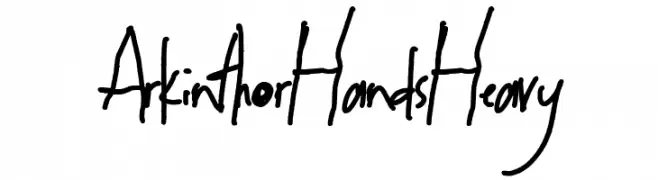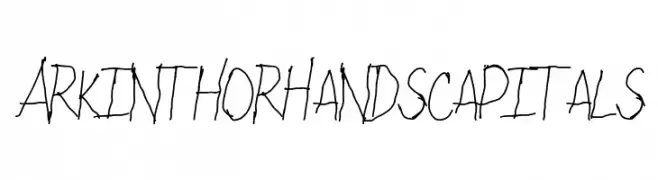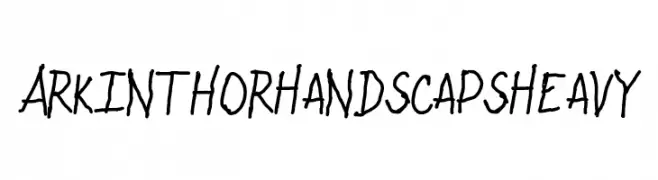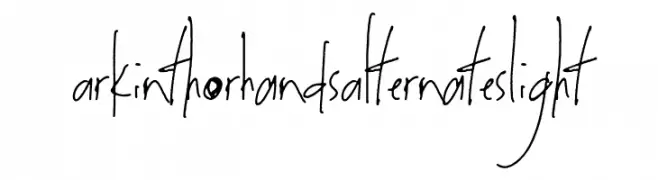
( Fonts by The Branded Quotes )
A rough, sketchy handwritten font with tall, narrow characters and expressive strokes.
( Fonts by The Branded Quotes )
Expressive handwritten font with tall, irregular forms and sketchy strokes.
( Fonts by The Branded Quotes )
Expressive, energetic handwritten style with tall, narrow characters.
( Fonts by The Branded Quotes )
Sketchy, hand-drawn uppercase font with expressive, irregular strokes.
( Fonts by The Branded Quotes )
Bold, hand-drawn uppercase font with an expressive, casual style.
( Fonts by The Branded Quotes )
Light, sketchy handwritten font with tall, expressive forms.